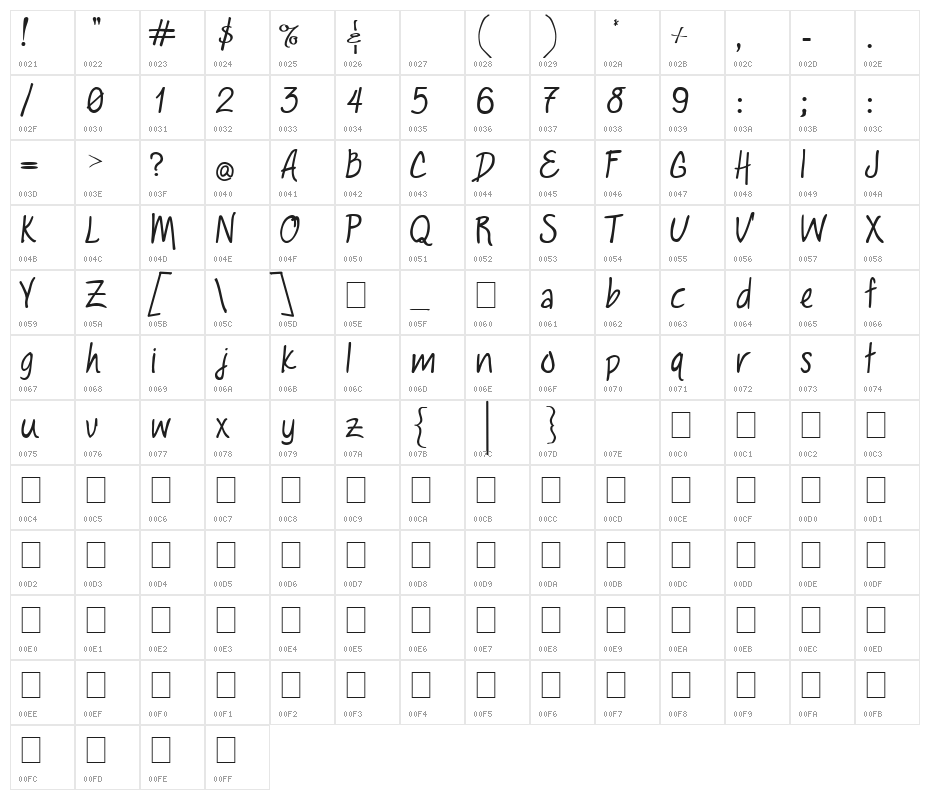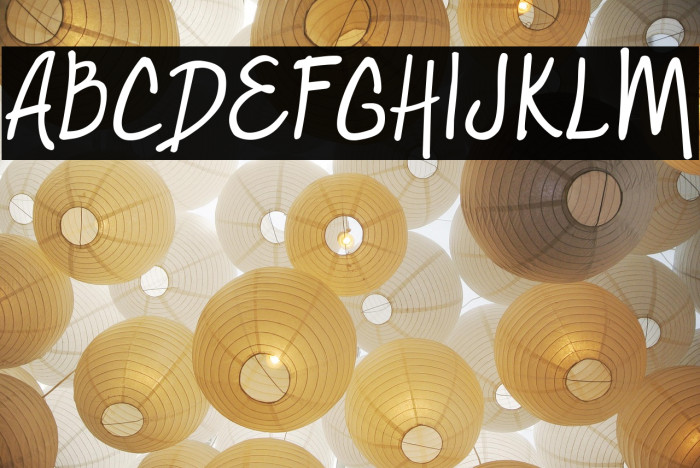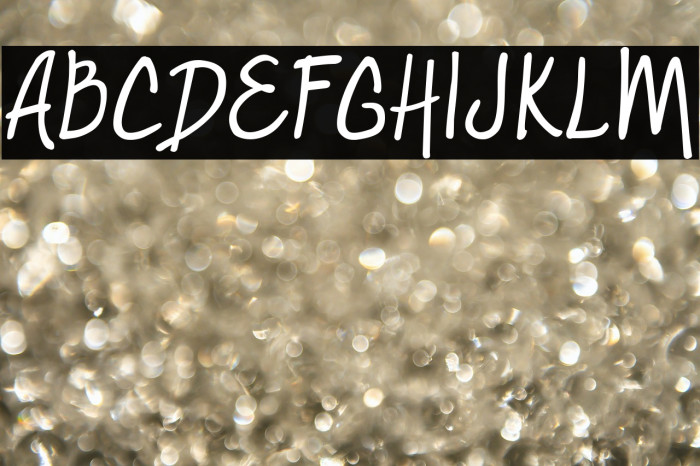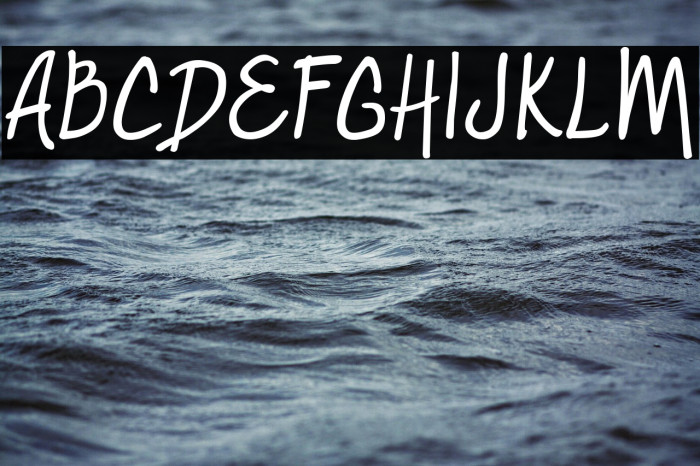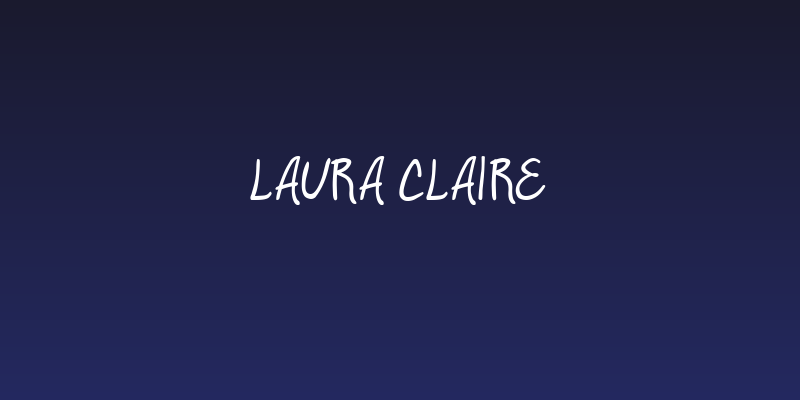
Laura Claire Font
Laura Claire Description
This font exudes a playful and casual handwritten style, characterized by its smooth, flowing lines and slightly uneven strokes that mimic natural handwriting. The uppercase letters are tall and slightly narrow, while the lowercase letters maintain a consistent height, adding to the font's approachable and informal appearance. The numerals are rounded and align well with the overall style, ensuring readability. Special characters are thoughtfully designed to match the font's aesthetic, making it versatile for various uses. The font's organic feel makes it suitable for projects that require a personal touch.
| Use Case | Logos, Headlines, Informal text |
| Proposed Projects | Ideal for greeting cards, personal branding, social media graphics, and informal invitations. |